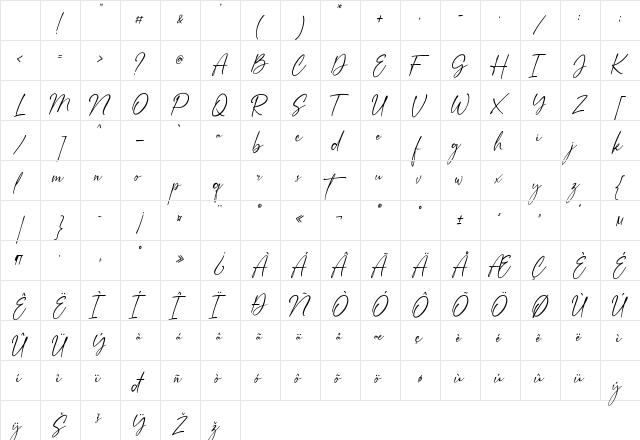
Complete Anthery Collection DEMO Regular glyph index. Displaying only characters natively supported by Anthery Collection DEMO Regular font.
Anthery Collection DEMO is a composed and adaptable typeface that performs quietly and consistently across a wide range of design contexts.